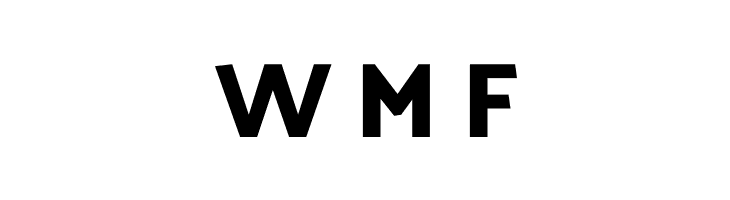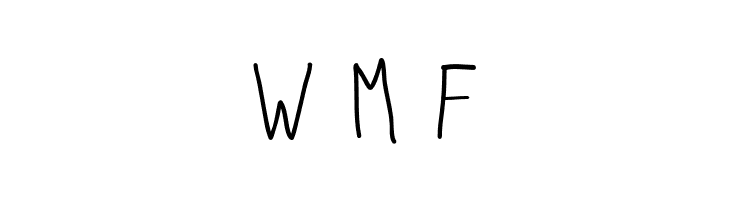
A modern, thin sans-serif font with clean lines and balanced spacing.
A modern, light, and clean sans-serif font with uniform stroke width.
A modern, geometric sans-serif typeface with clean lines and balanced proportions.
A bold, modern sans-serif font with clean lines and geometric shapes.
A bold, modern sans-serif font with a clean and geometric design.
A bold, modern sans-serif font with clean, geometric lines.
A bold, playful handwritten font with a casual and friendly vibe.
A playful, handwritten font with a whimsical and casual style.